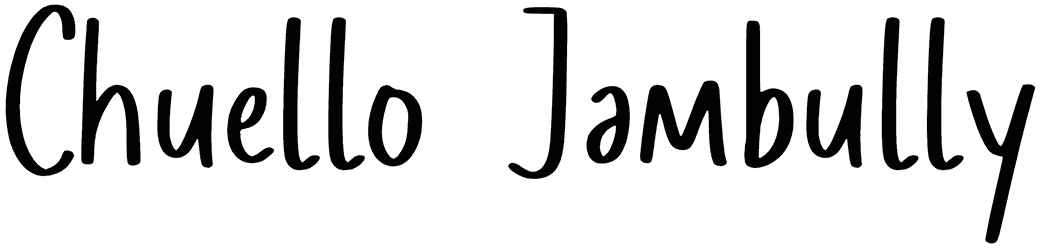
Danila Font
If your projects are lacking a touch of femininity, Danila is here to save the day. Because of the charming brushed effect it has, this summer font is useful whenever you require a relaxed and informal style, including articles, apps, movie titles, and postcards. If you’re interested, you can take any of the many fantastic fonts that are housed in our font library.
Font By Letterayu Studio (Masyafi Team)
Designed by: Letterayu